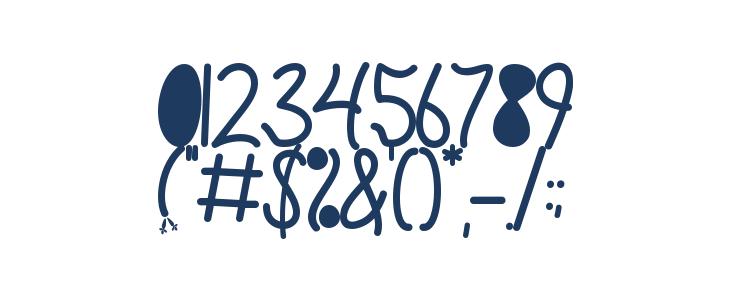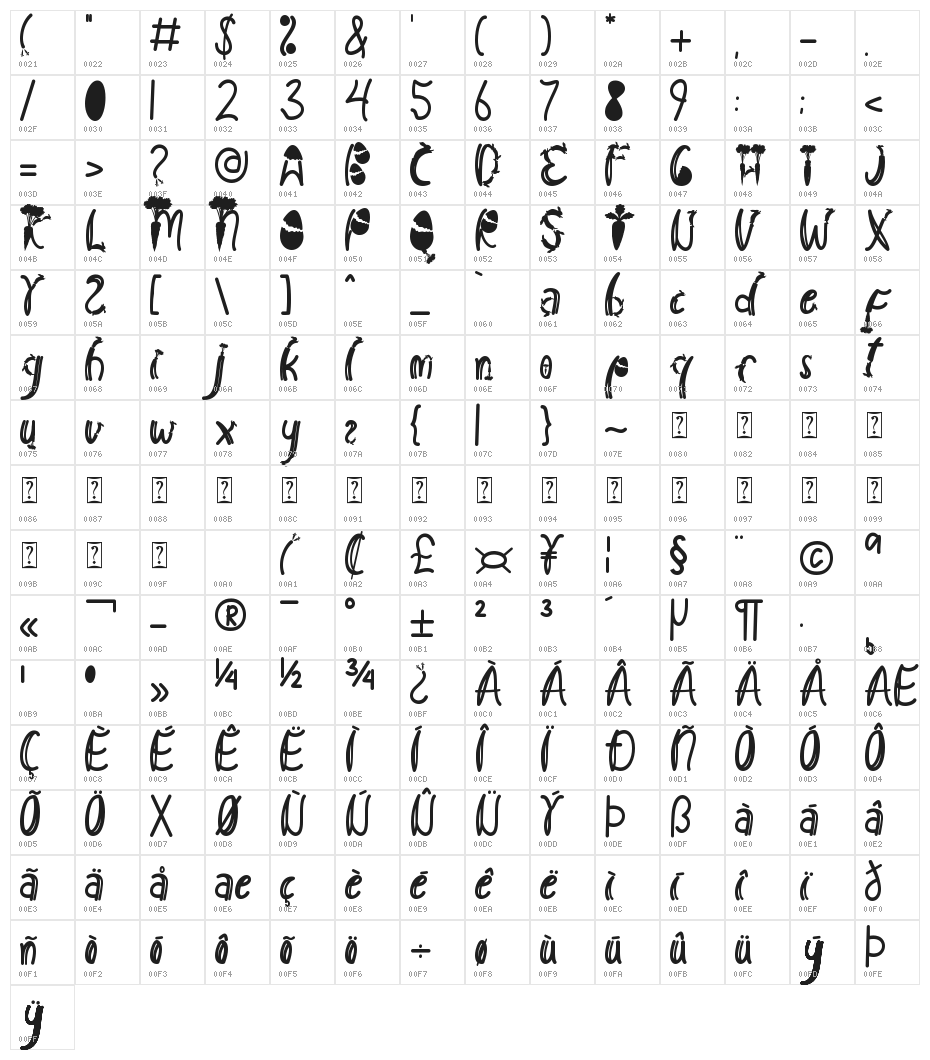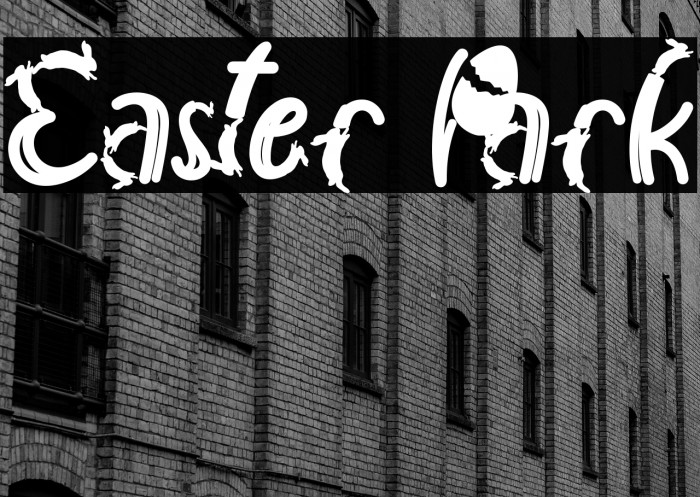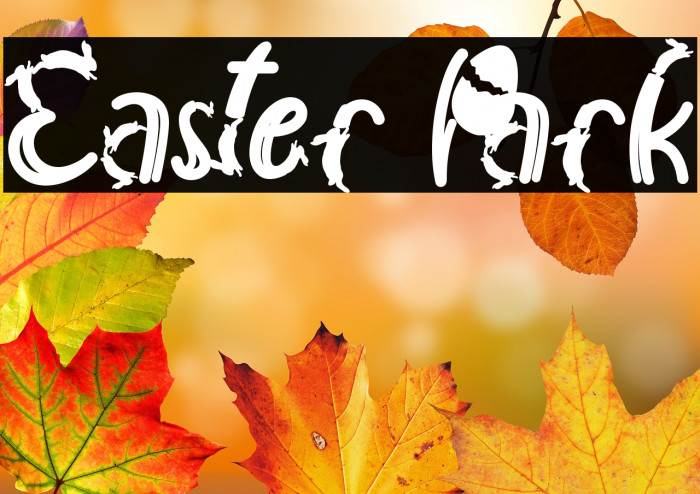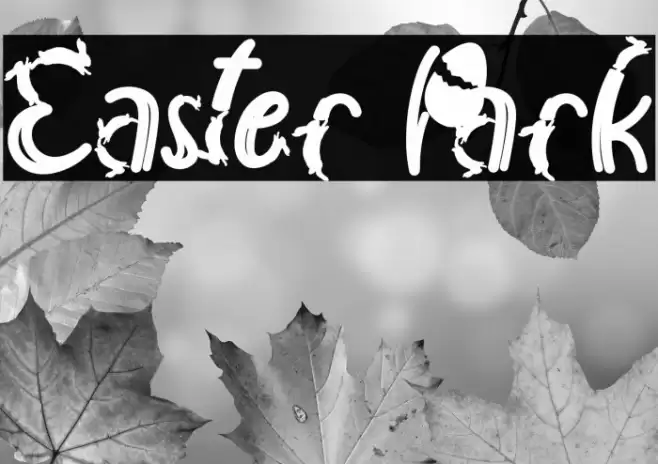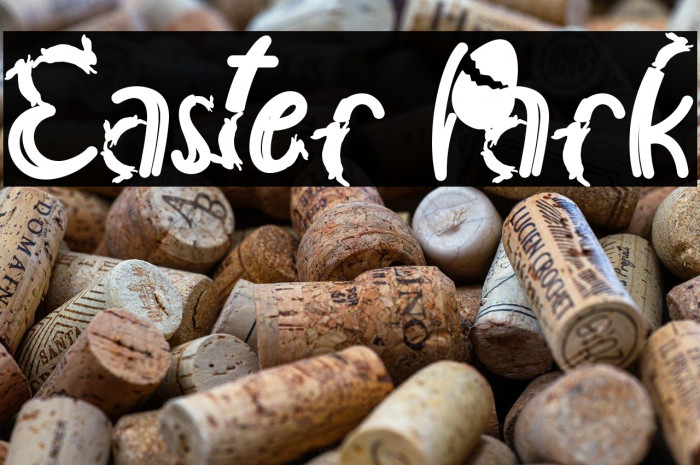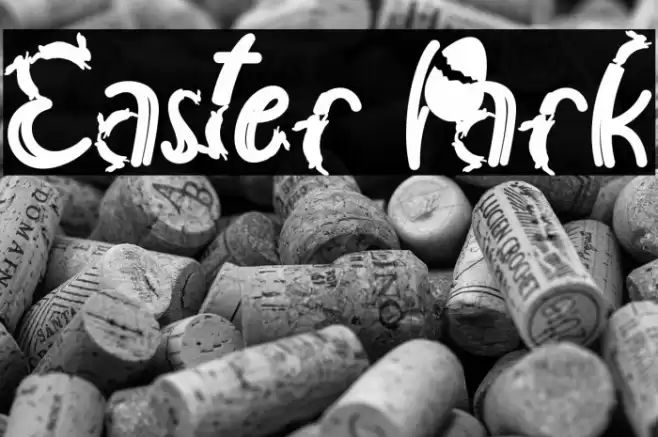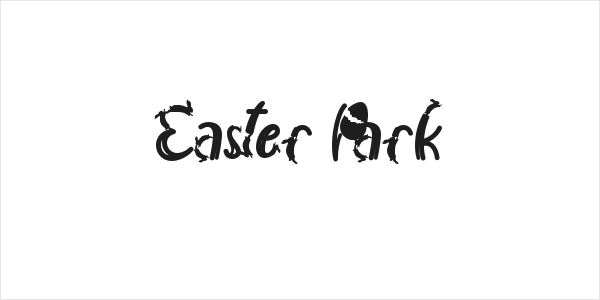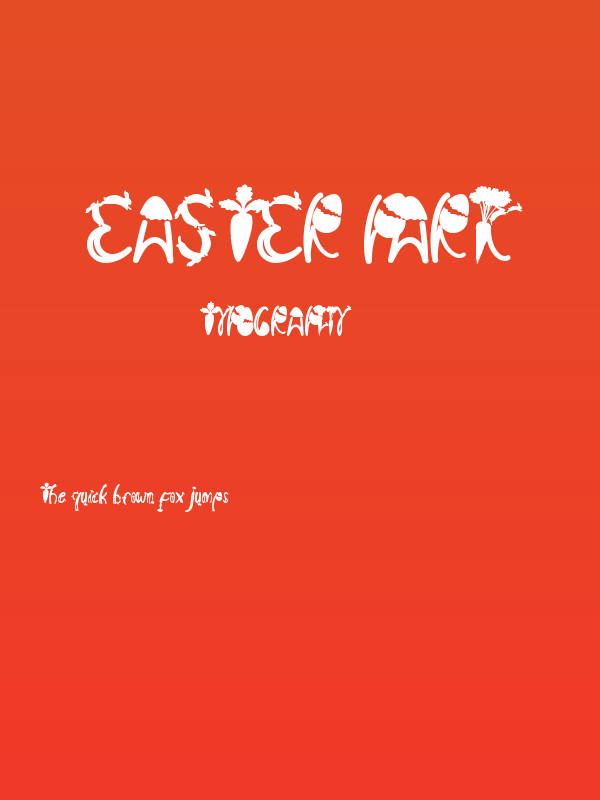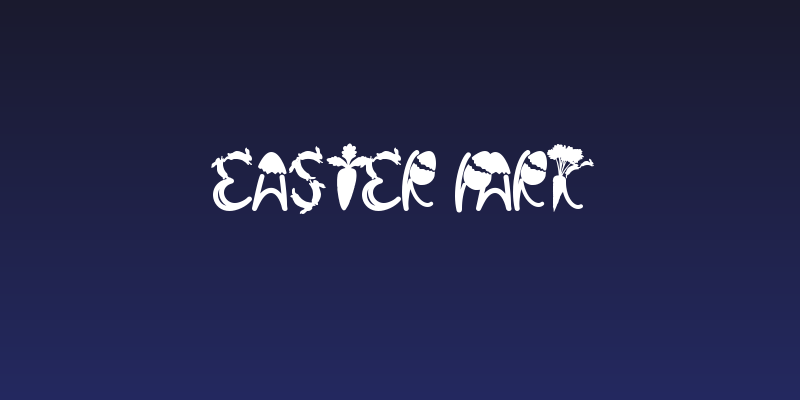
Easter Park Font
Easter Park Description
This playful and decorative font features whimsical elements integrated into each character, such as trees, flowers, and rabbits, creating a lively and nature-inspired theme. The uppercase and lowercase letters are uniquely designed with varying thicknesses and organic shapes, giving each character a distinct personality. The numbers and special characters continue this theme, incorporating similar natural motifs. This font is perfect for projects that require a touch of creativity and fun, capturing the essence of a playful park or garden setting.
| Proposed Projects | Ideal for children's books, greeting cards, event invitations, and playful branding projects. |